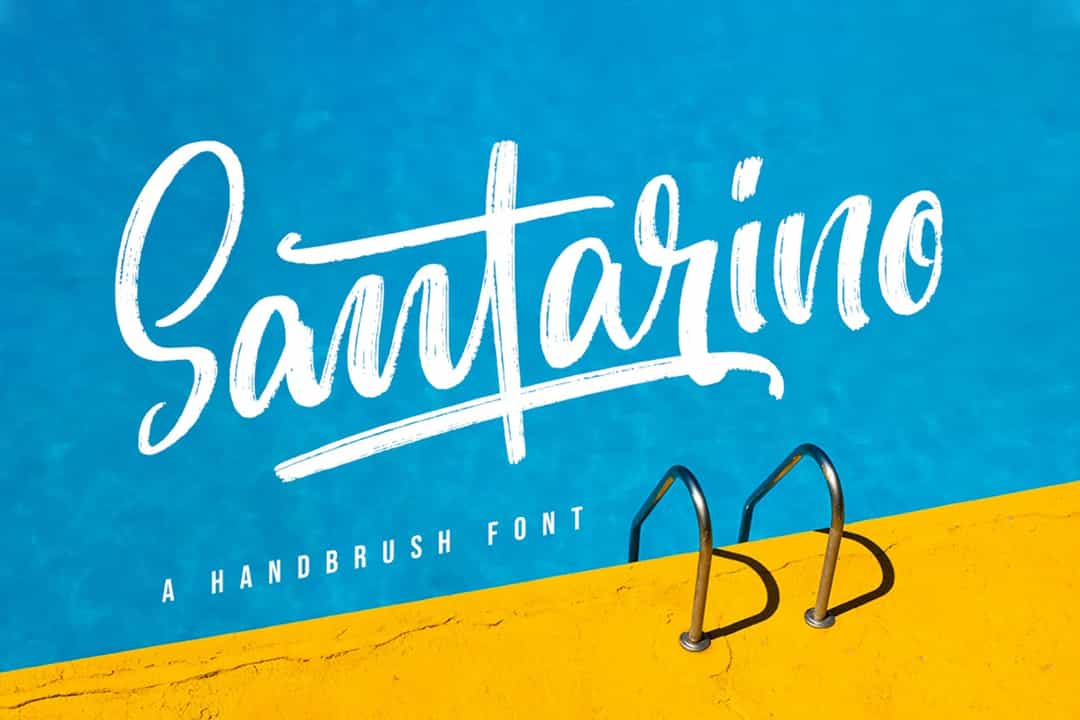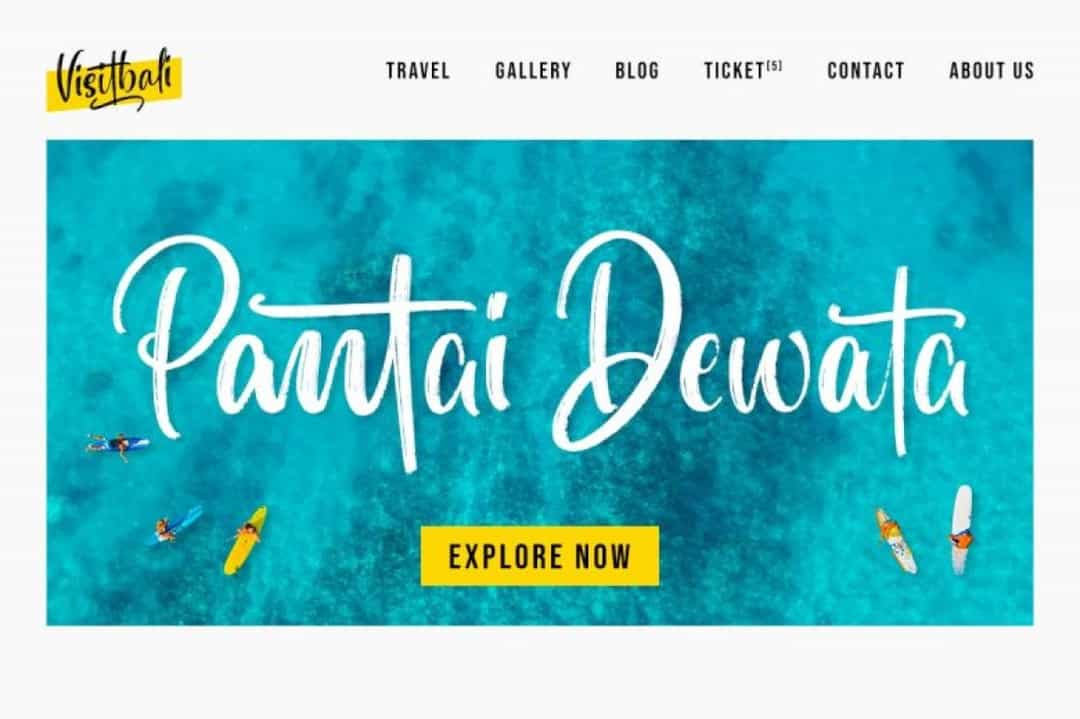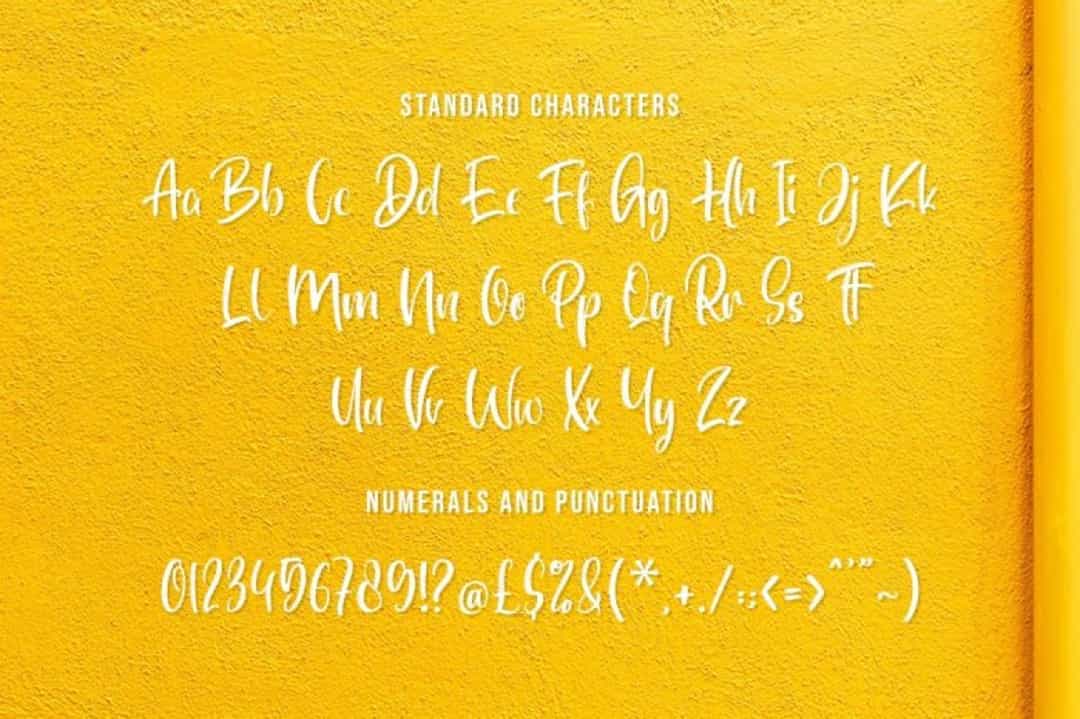
Santarino Brush Font is an exciting, modern and fresh brush font, ideal for use during the summer season! It boasts an eye-catching style and summery charm that gives any of your designs a contemporary aesthetic.